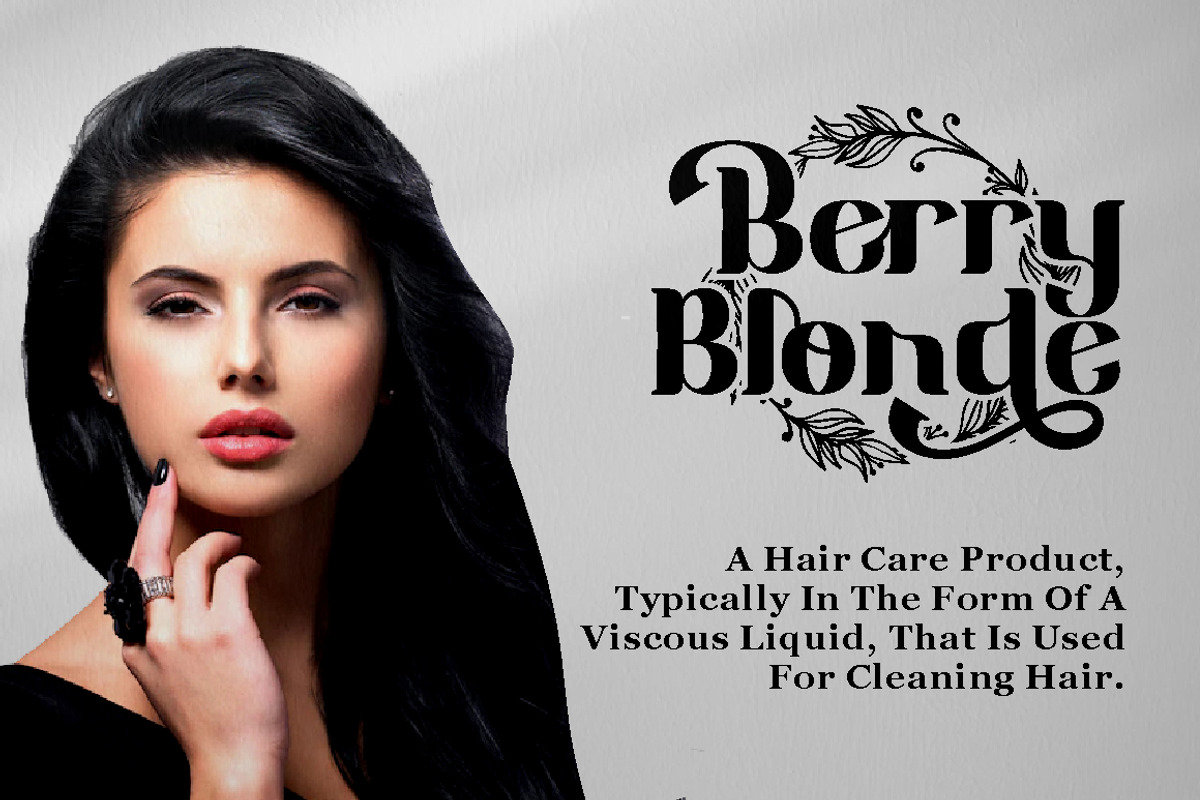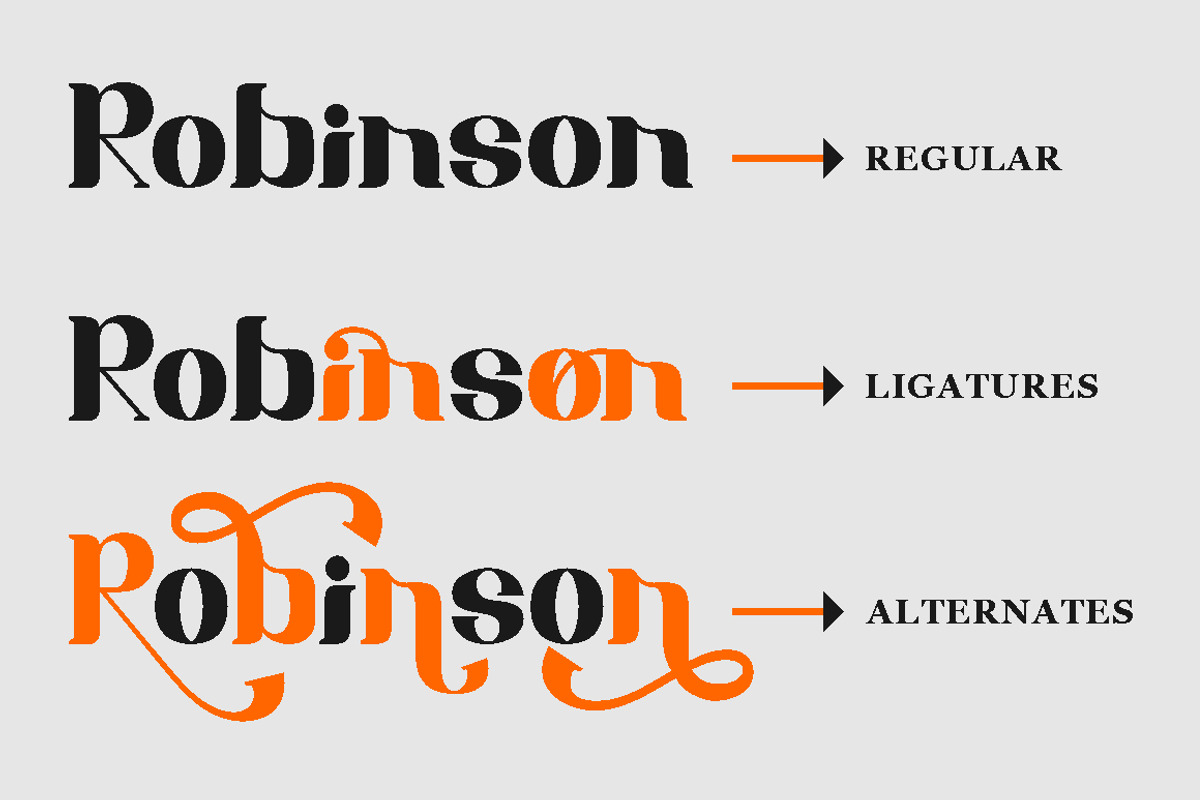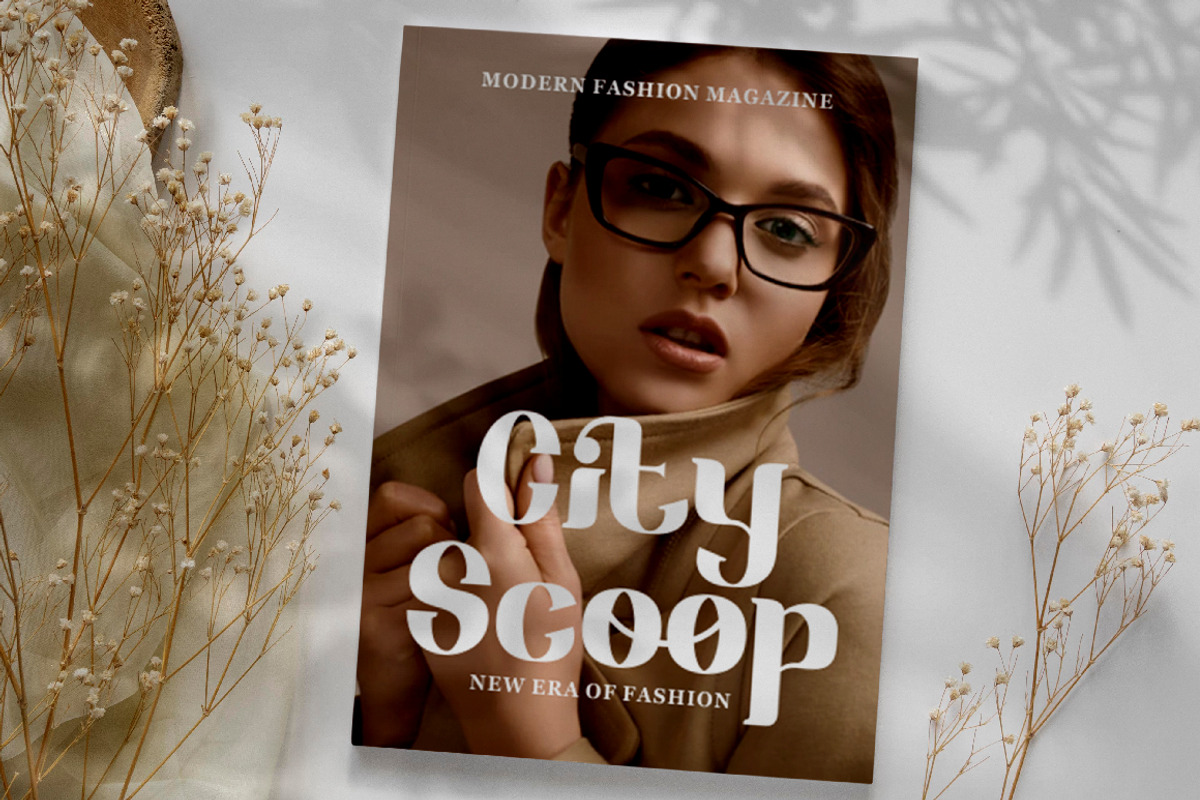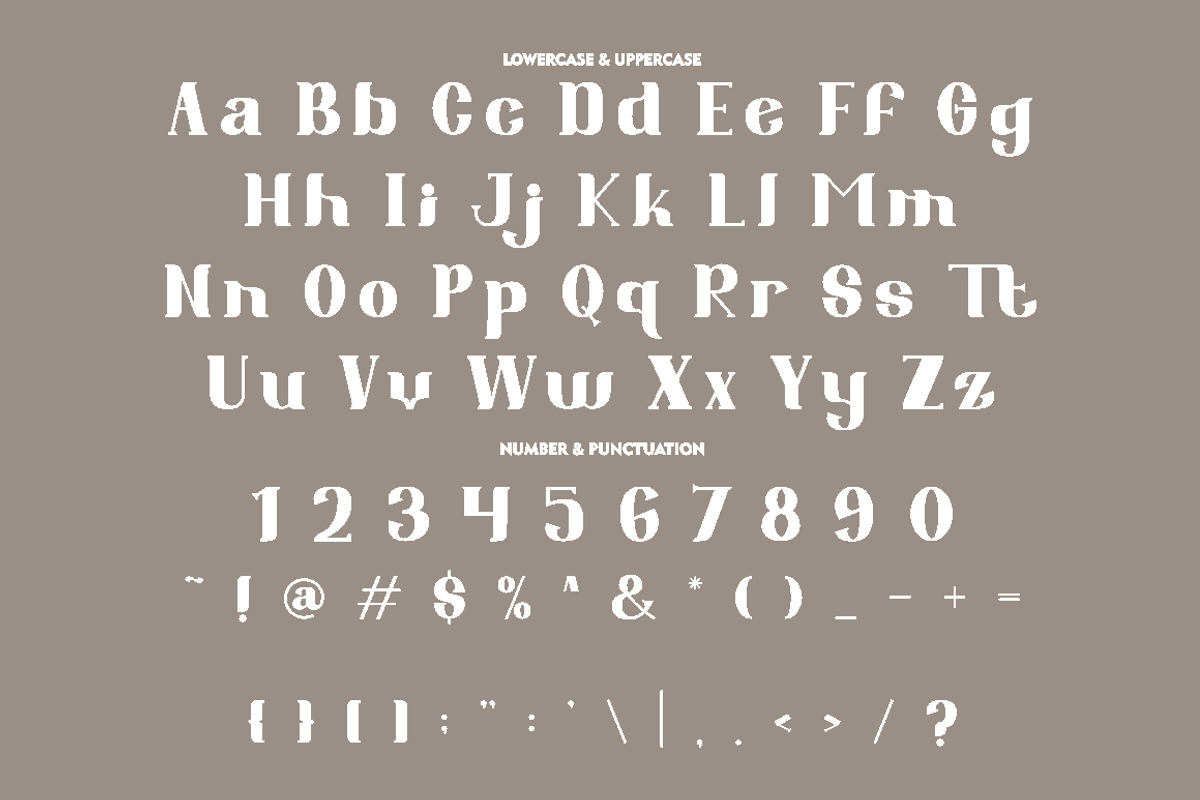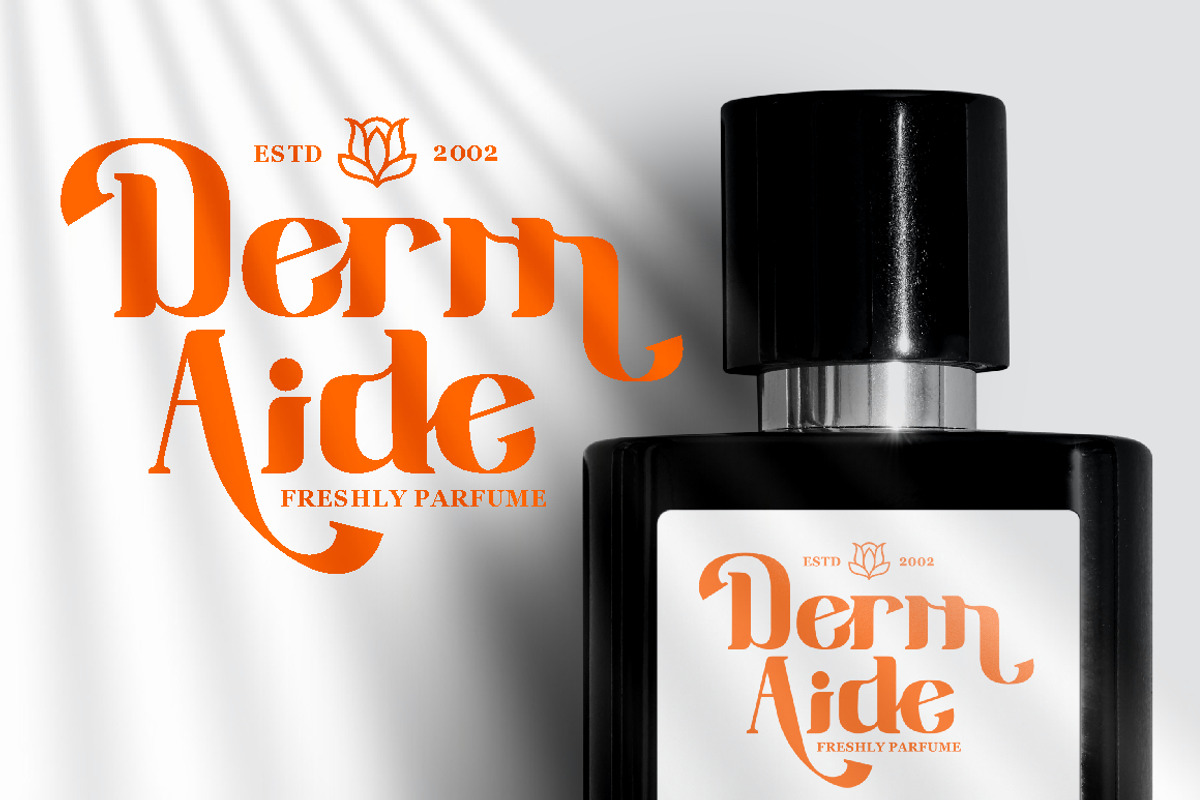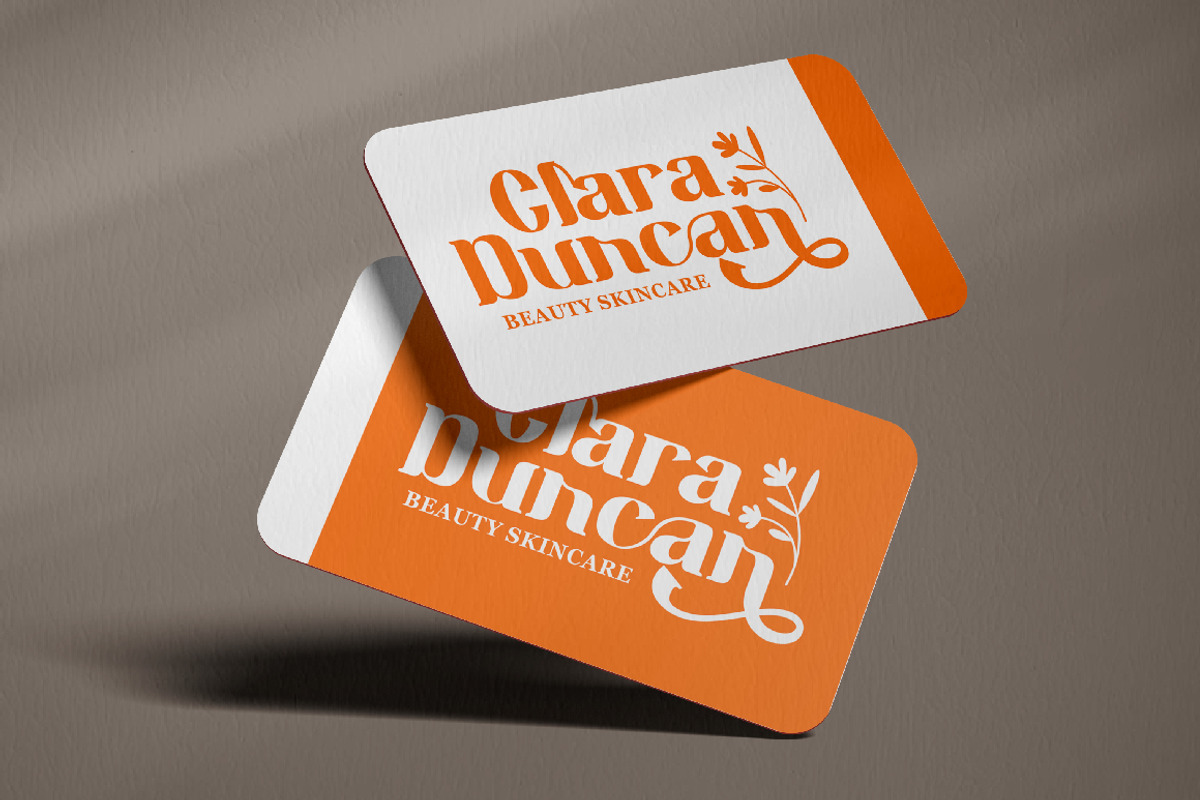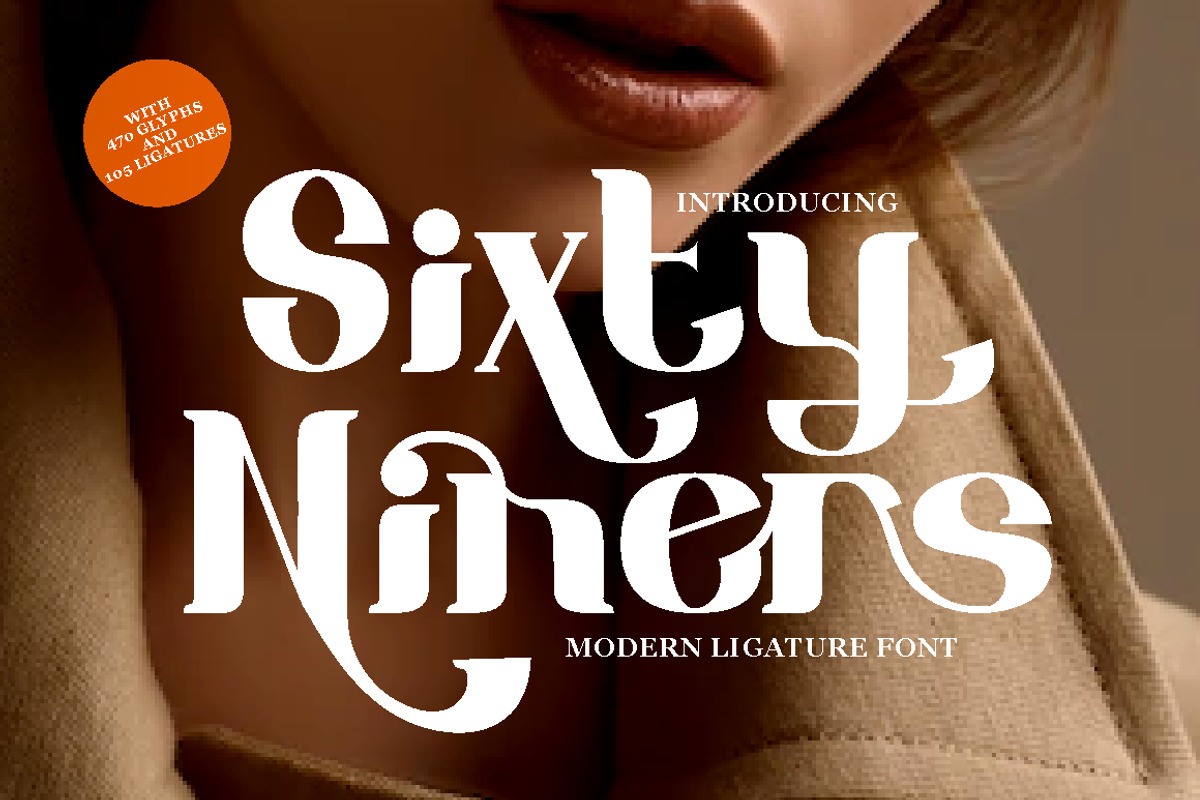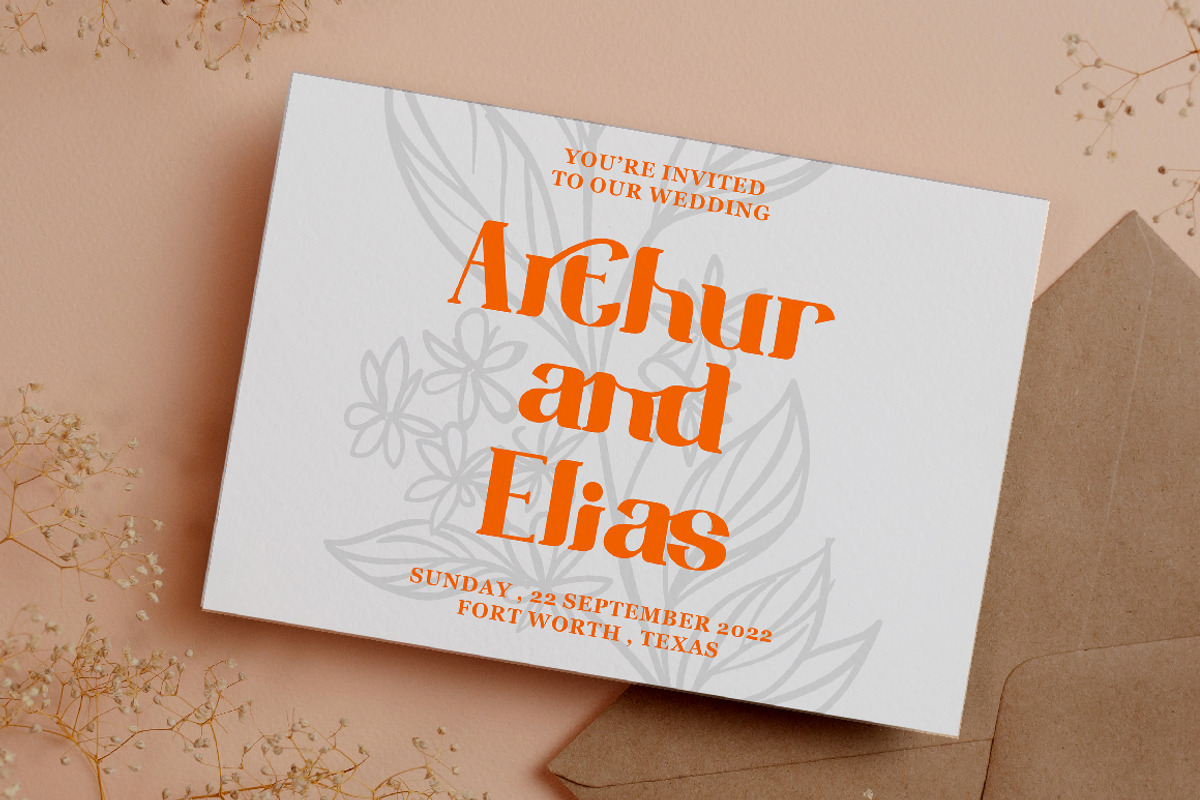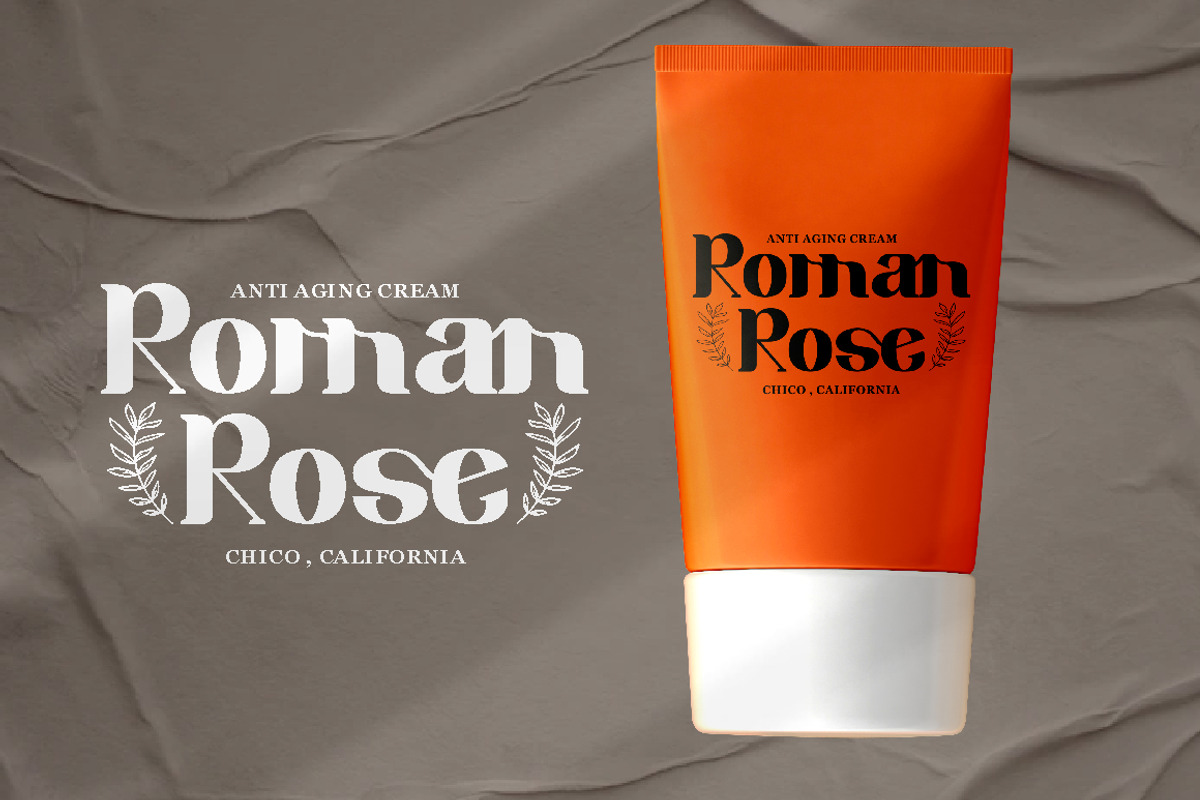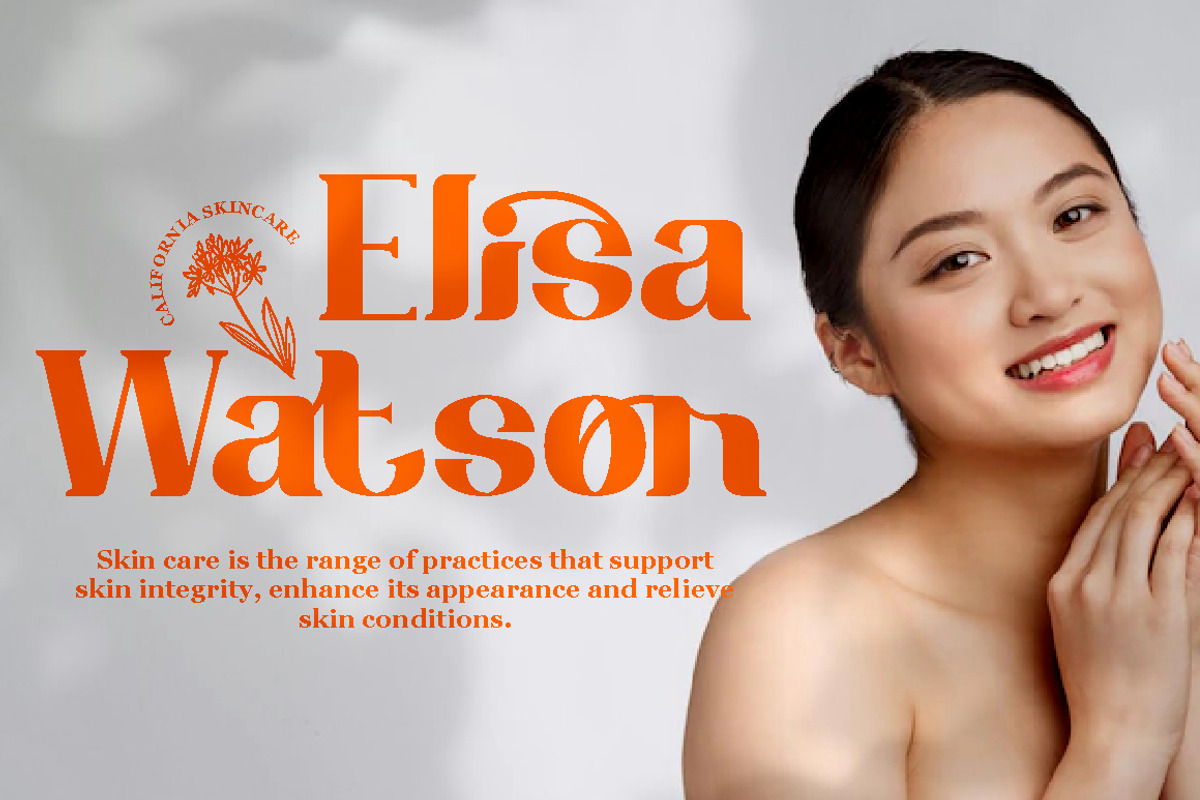
Sixty Niners - Retro Display Font
Sixty Niners - Retro Display Font. Inspired from unique typography and lettering in the elegant alphabet from vintage megazine and we combine with modern typography style. Modern ligature you can make great lettering for beautiful artwork. Come with open type feature ( a lot of alternates and end swash), its help you to make great lettering. Sixty Niners best uses for Logotype, heading,cover, poster, logos, quotes, product packaging, header, merchandise, social media & greeting cards and many more. Sixty Niners font is also support multi language.
- Opentype (Alternates And Ligatures)